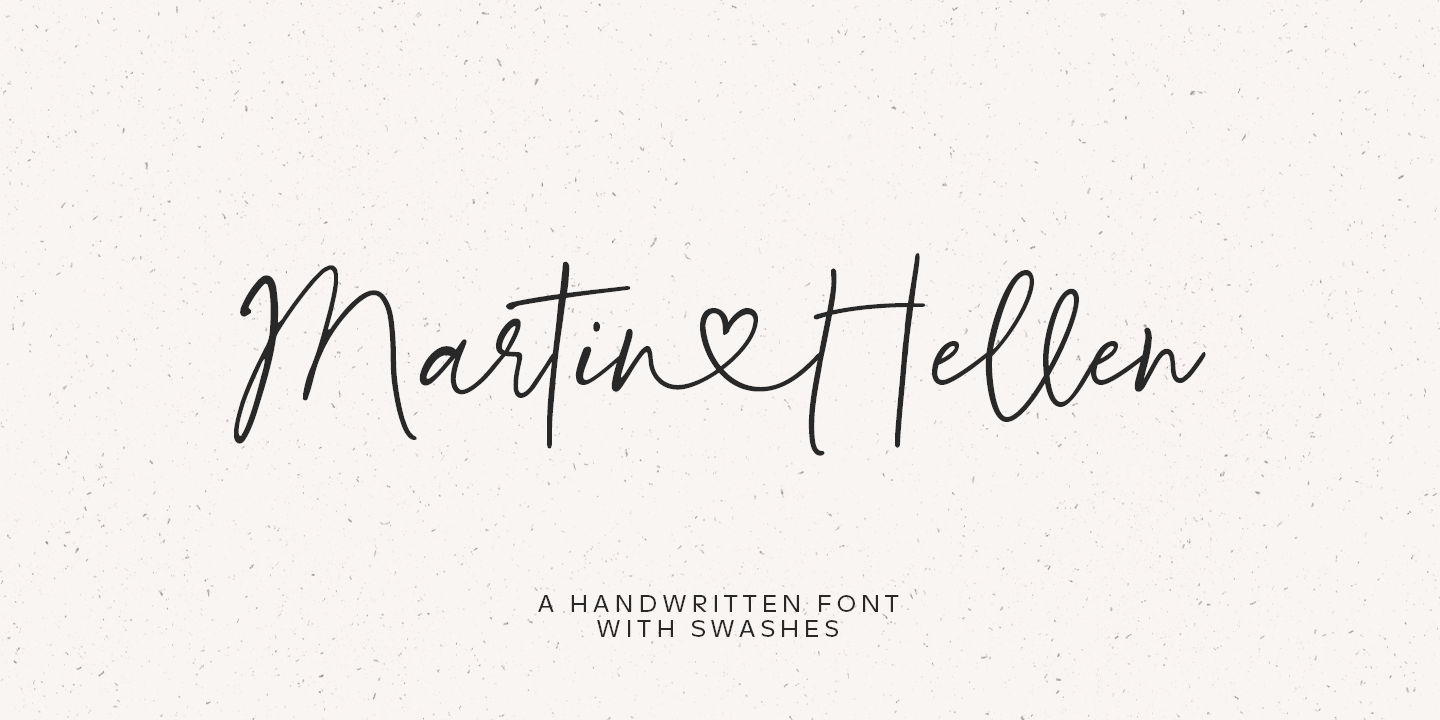
This romantic script font is perfect for wedding invitation design, couple's branding, romantic greeting cards, anniversary celebrations, engagement announcements, love-themed marketing, Valentine's Day campaigns, and intimate design projects that celebrate partnership and timeless romance.
Martin&Hellen Font is exciting because it embodies the perfect union of two hearts with its harmonious letterforms that dance together like lovers in eternal embrace. The font captures the essence of partnership while delivering romantic elegance that speaks to soulmate connections.
The Martin&Hellen Font family includes regular and ornamental versions with romantic decorative elements, heart symbols, and love-inspired flourishes, providing designers with comprehensive tools for creating heartfelt typography that celebrates true love.
Ready to celebrate eternal love? Martin&Hellen Font Free Download offers designers romantic letterforms that unite with passionate elegance and partnership harmony. This enchanting typeface combines couple aesthetics with professional functionality, making it ideal for wedding planners, romantic brands, and love-focused campaigns. Whether you're designing wedding stationery, couple's photography portfolios, or romantic product packaging, this font delivers heartfelt appeal. The lovingly crafted characters feature romantic unity while maintaining excellent readability across love-filled applications. Perfect for businesses in wedding planning, photography, romantic gifts, and couple's services that celebrate love and partnership. The font's romantic construction creates memorable brand recognition that resonates with couples worldwide. Each letter showcases deliberate harmony that mirrors the beautiful balance of perfect partnerships. Download today and unite your creative projects with romantic magic using this premium script font that transforms ordinary text into extraordinary expressions of love and the eternal bond celebrated in Martin&Hellen Font Free Download romance.